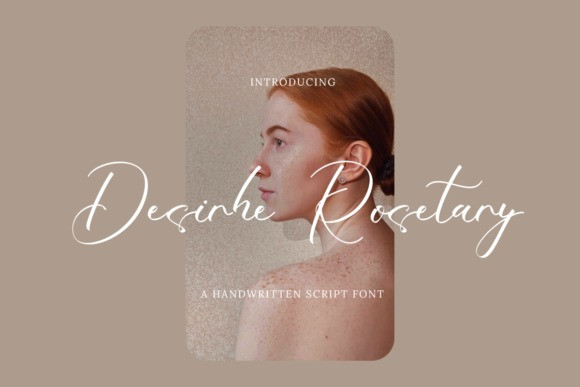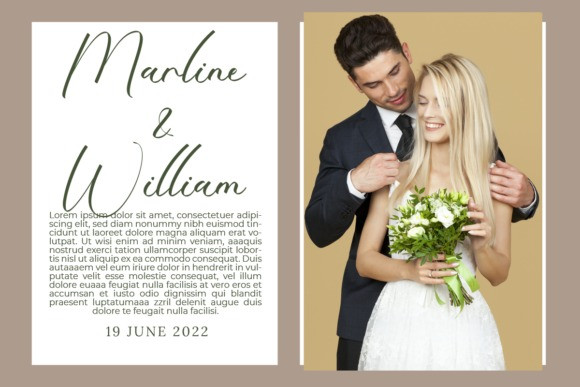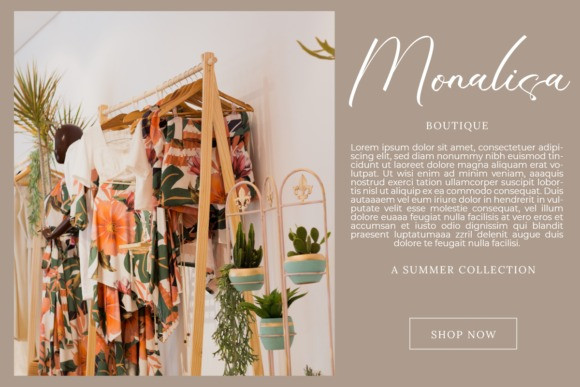
Desirhe Rosetary Font
Desirhe Rosetary is a lovely and delicate script font that exudes elegance and class. This font was particularly crafted for those who need a beautiful and refreshing look to their designs.